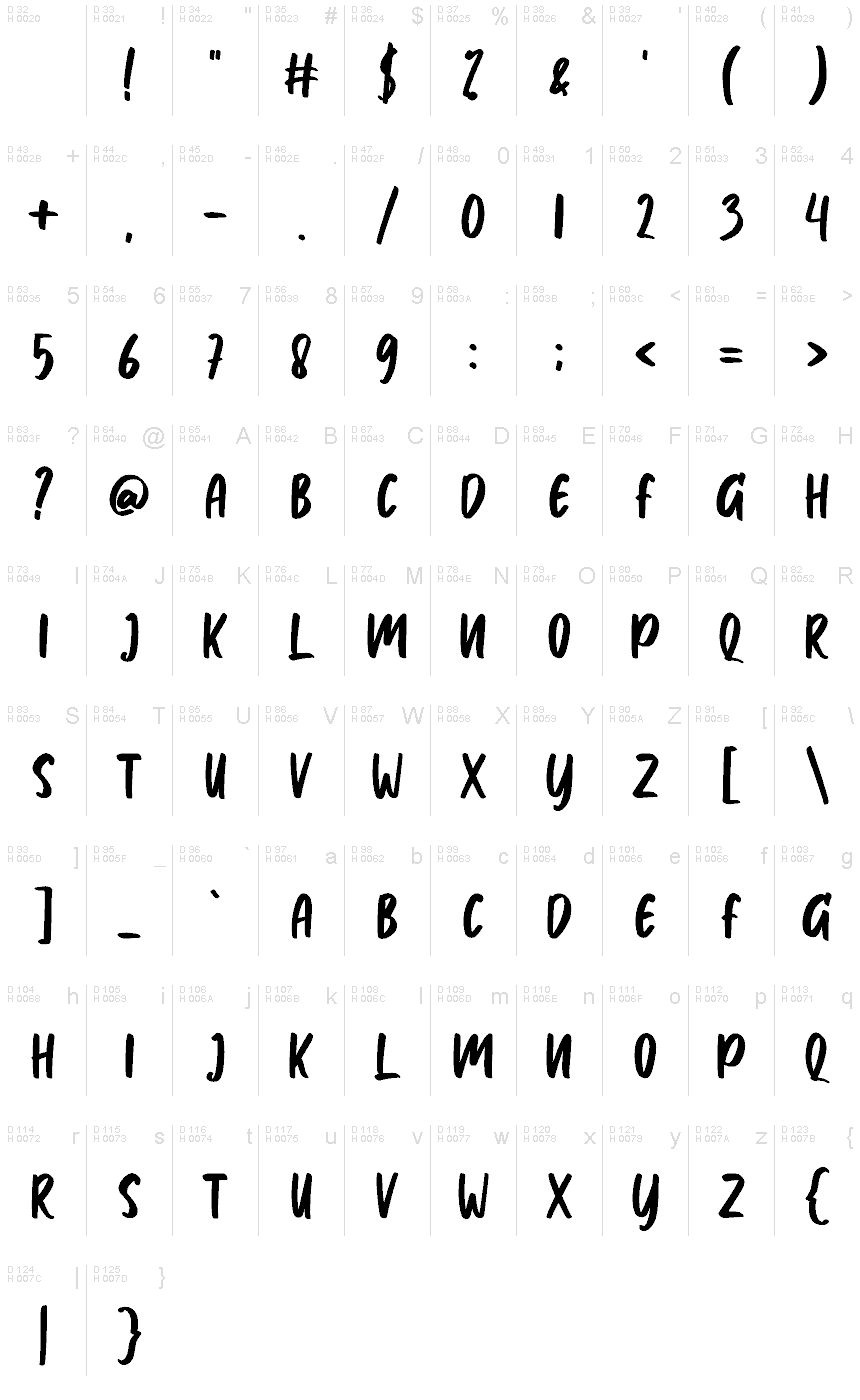
Lovely Dattega Sans
Lovely Dattega Sans font by Skiiller Studio is a modern condensed font designed with a brush stroke style. This free brush font reflects a casual and energetic feel provided by its expressive personality, handwritten finish, and slanted look. The style of Lovely Dattega has got an eye-grabbing presence inspiring authority upon readers.